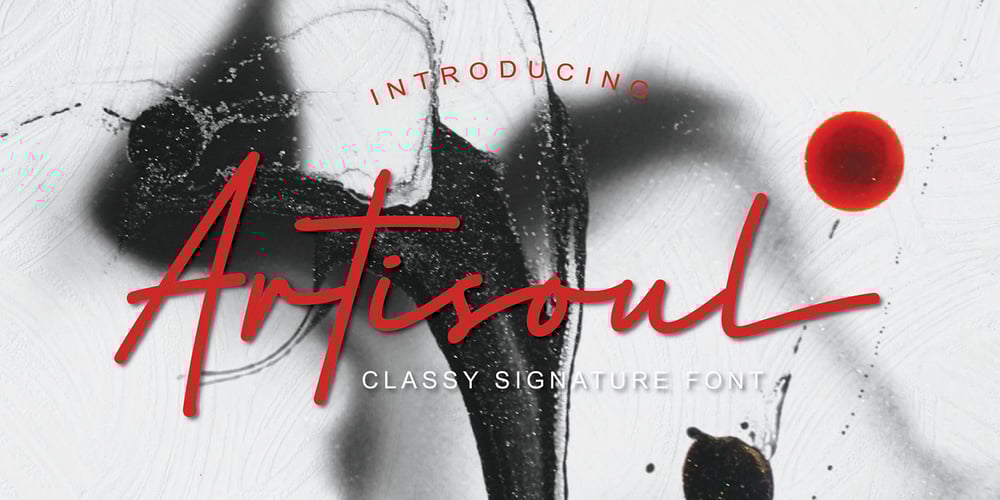
Artisoul Signature Font Family was designed by Rinto Dwi Nugroho and published by Almeera Studio. Artisoul Signature contains 1 styles and family package options. Artisoul is a handwritten signature script with a classy & natural flow. This collection of script characters is perfect for personal branding. Artisoul works well for many applications. Everything from personal branding and wedding invitations to advertising could benefit from this signature font such as photographers signature, cosmetics, watermark, liquor labels, signage, and any type of signature-styled logo.Artisoul Signature is a must-have script that has a diverse set of alternates that will surely be used many times in various projects in the future. Thanks and happy design.